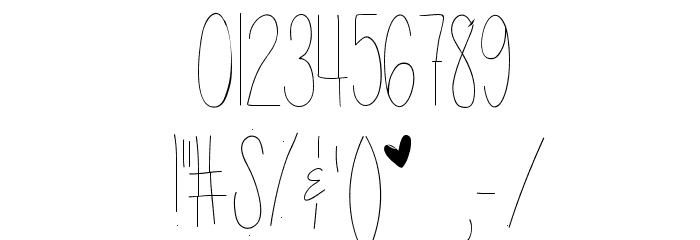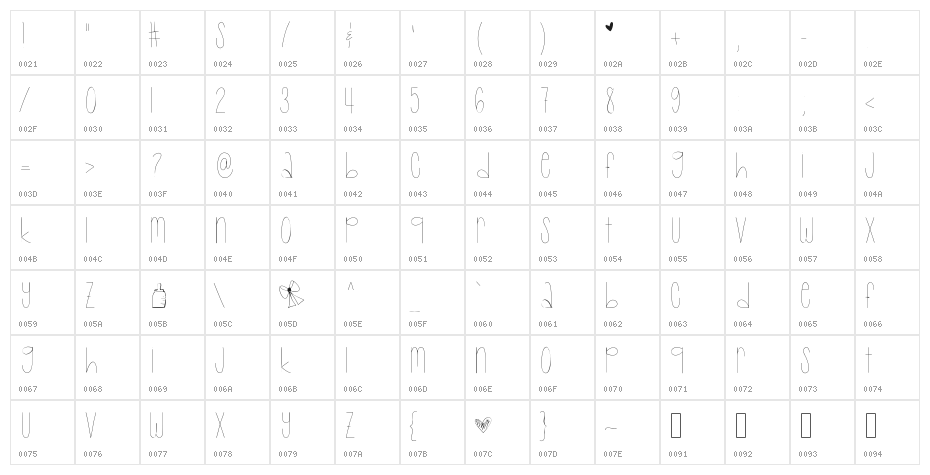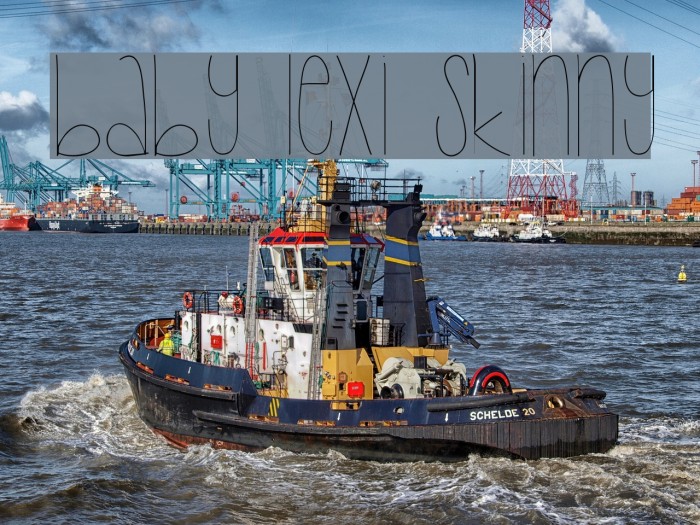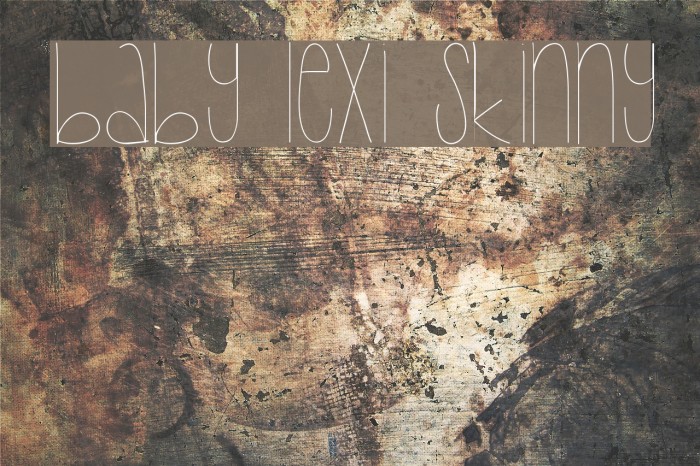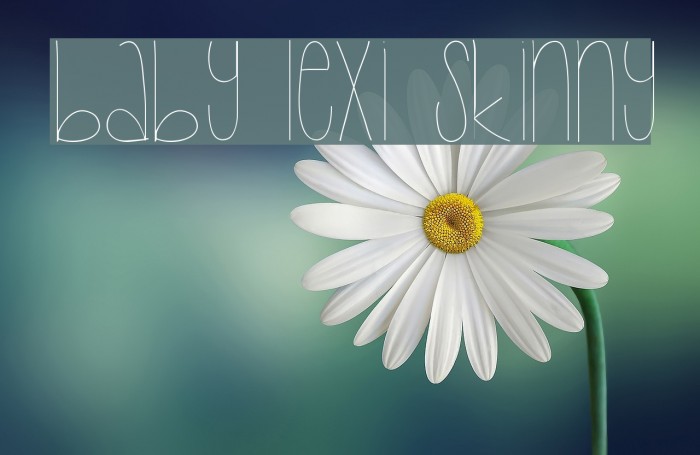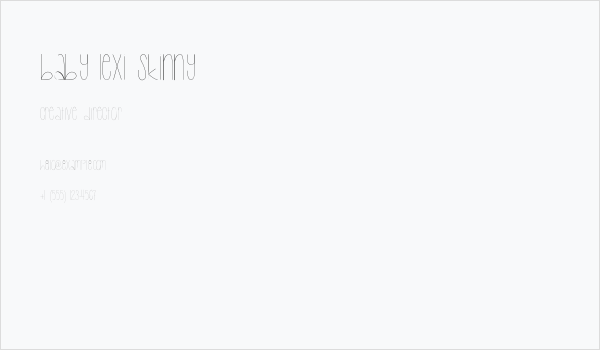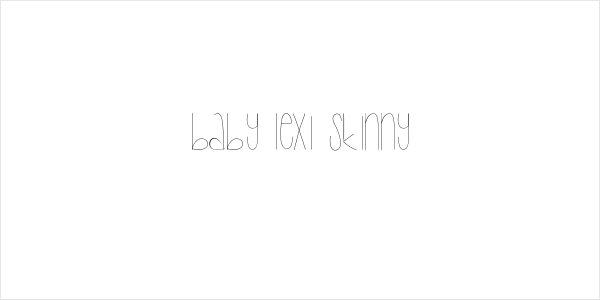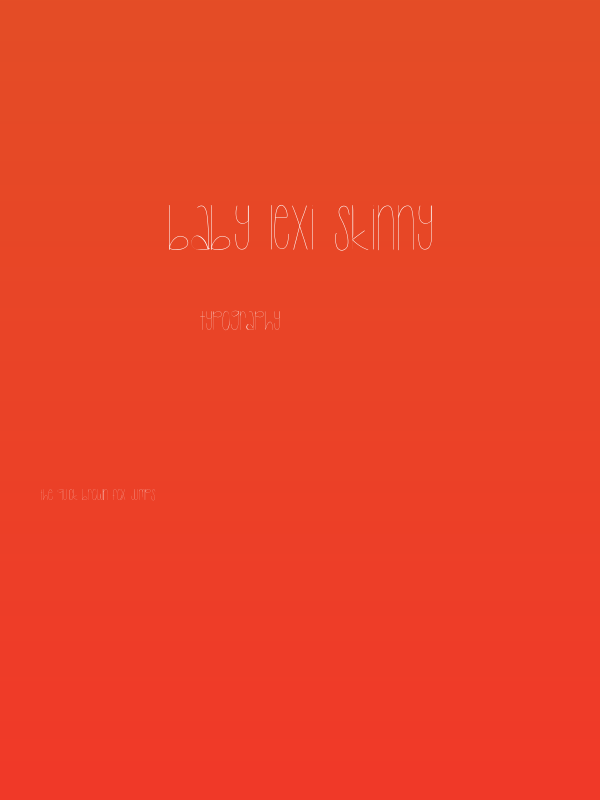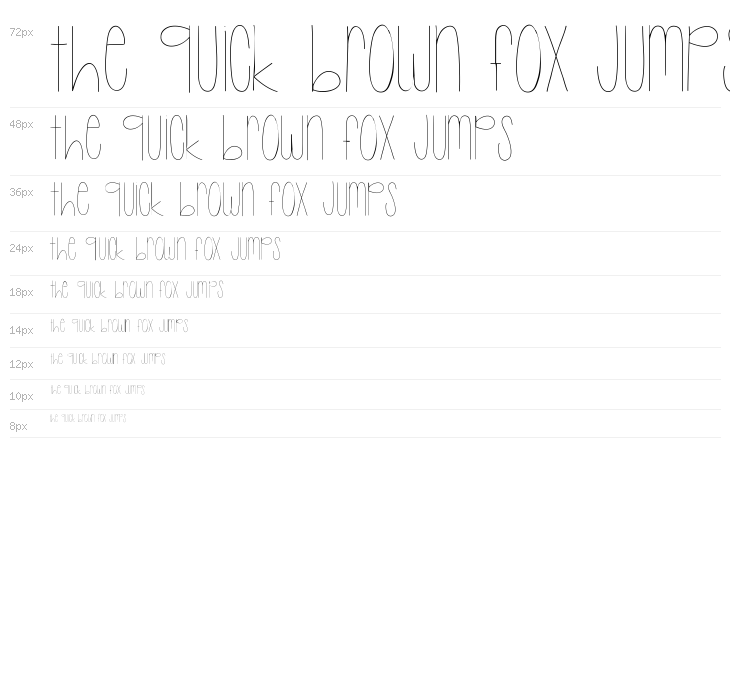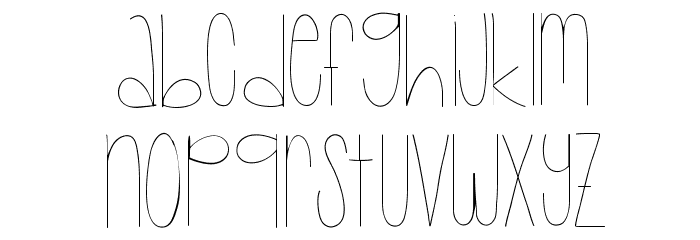
Baby Lexi Skinny Font
Baby Lexi Skinny Description
This font features a playful and whimsical style with elongated, slender characters that give it a unique and airy appearance. The letters are tall and narrow, with a consistent stroke width that maintains a delicate and elegant look. The uppercase and lowercase letters share a similar height, enhancing the font's uniformity. The numbers and special characters are designed to match the overall aesthetic, ensuring a cohesive appearance across all text. This font's distinctive style makes it ideal for projects that require a touch of creativity and lightheartedness.
| Overall Style | Whimsical |
| Proposed Projects | Ideal for children's book covers, playful invitations, greeting cards, and creative branding projects. |